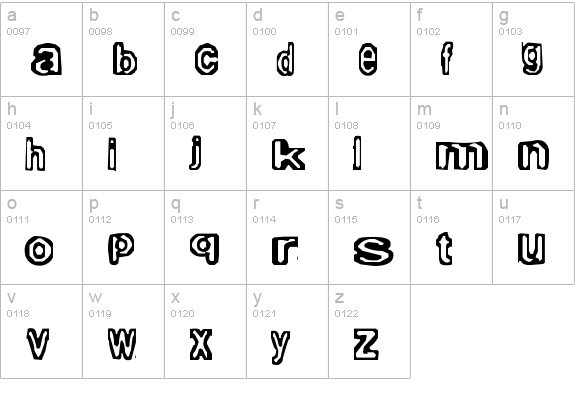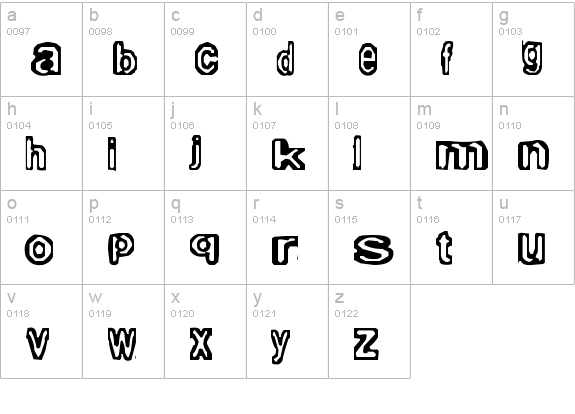
AmateurLobotomy Font Details
AmateurLobotomy font is a quirky and playful typeface that exudes a sense of creativity and uniqueness. Its irregular letter shapes and uneven spacing give it a handcrafted look that is perfect for adding a touch of whimsy to your projects. This font is freely available to download at FontsMarket.com, making it accessible to anyone looking to add a fun and unconventional touch to their designs. Whether you're working on a poster, logo, or social media graphic, AmateurLobotomy font is sure to make your text stand out and grab attention. With its bold personality and distinct style, this font is a great choice for those looking to break away from traditional typefaces and make a statement. Download AmateurLobotomy font today and unleash your creativity with this free and eye-catching typeface.